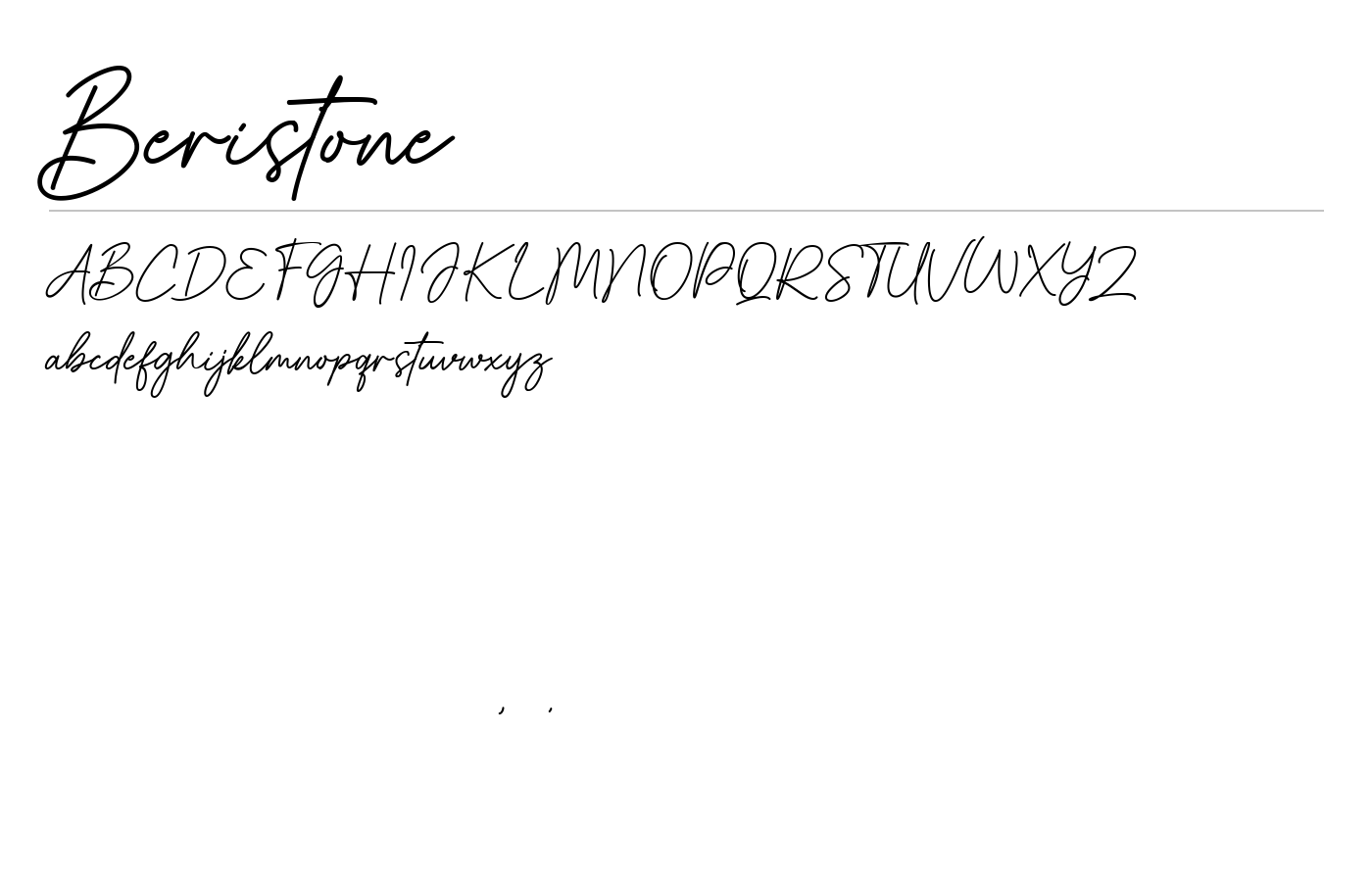
Beristone is a delicate and elegant script font characterized by its slender, flowing letterforms that mimic natural handwriting with a touch of sophistication. It features smooth, slightly varied stroke widths and tall, airy letter shapes, making it perfect for designs that need a graceful, personal feel such as invitations, branding, and fashion projects. This font works beautifully in headlines and decorative text where a refined, stylish look is desired.
Beristone Font
About Beristone Font